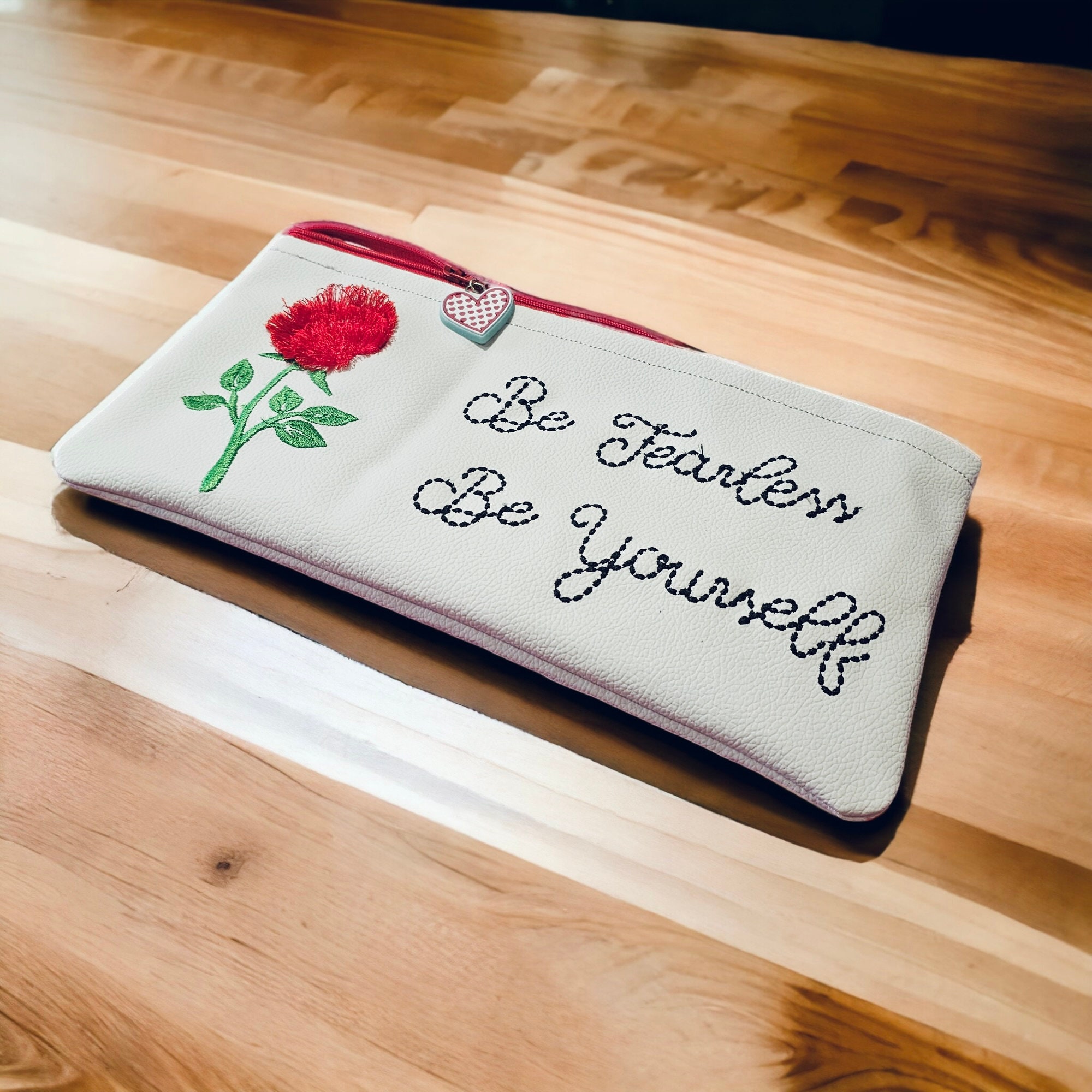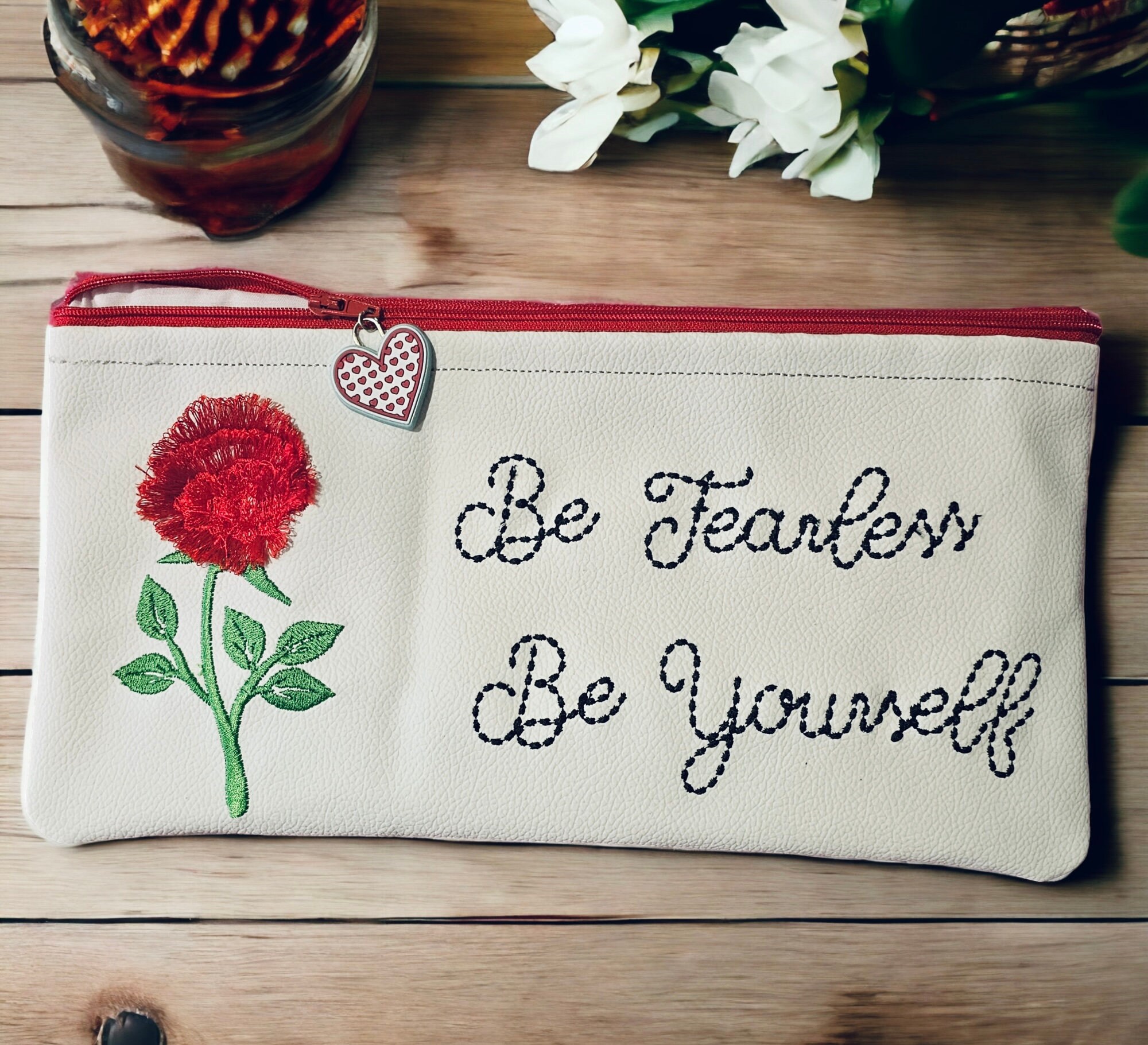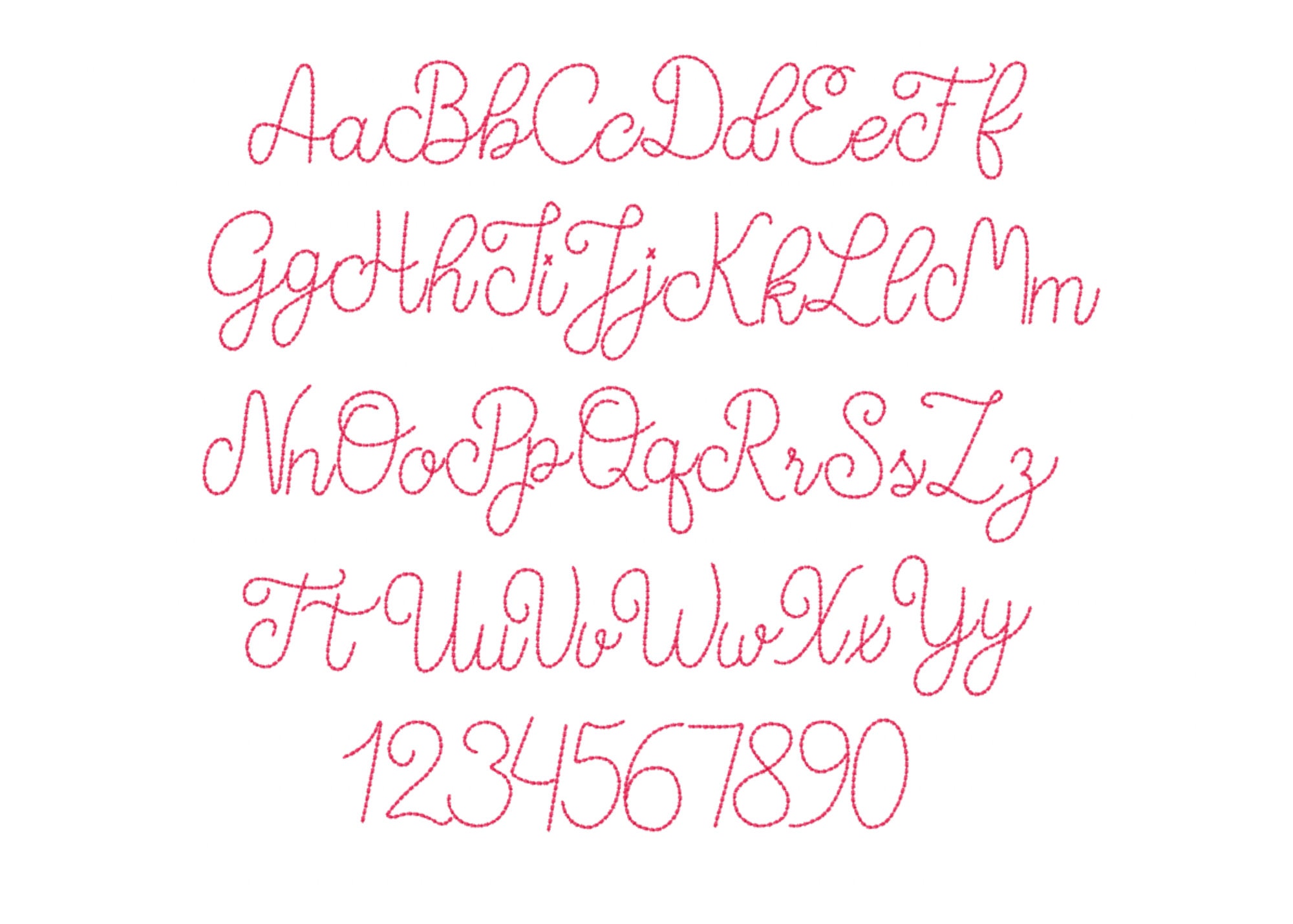
Hand stitch effect Bean stitch FONT machine embroidery designs in assorted sizes handwritten alphabet letters kids name monogram BX included
Whole alphabet: uppercase and lowercase letters, and numbers.